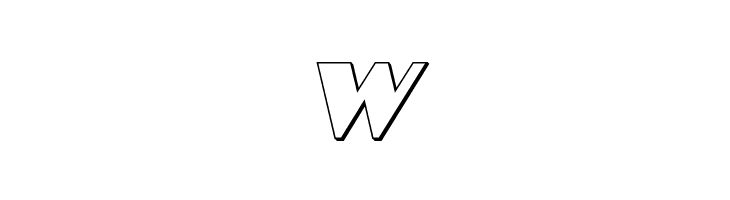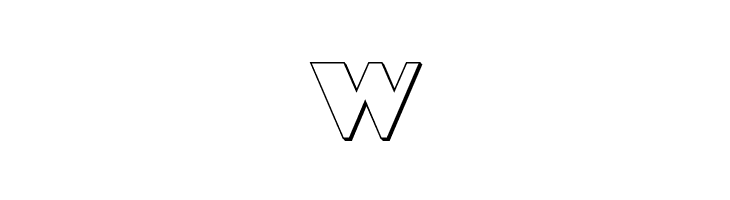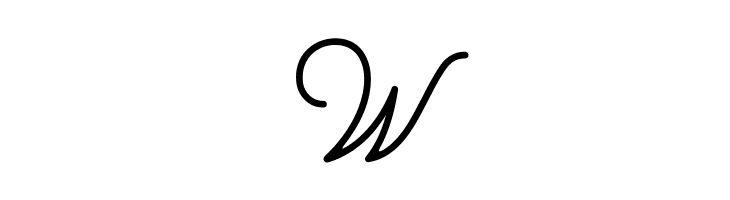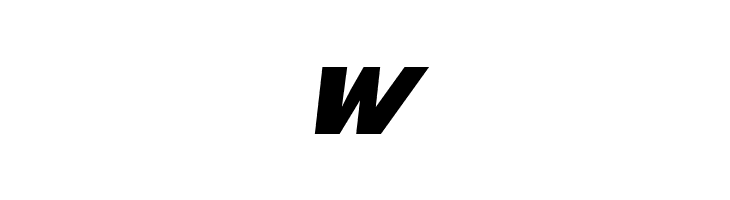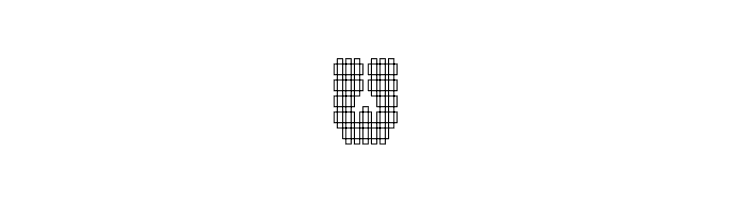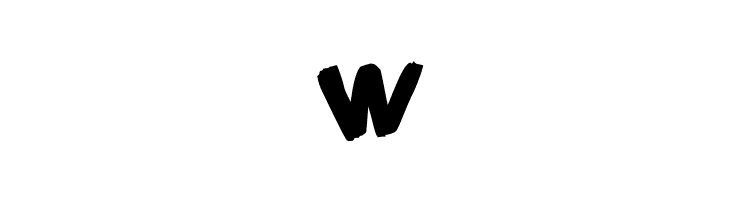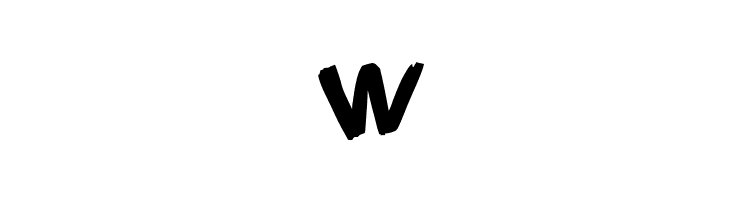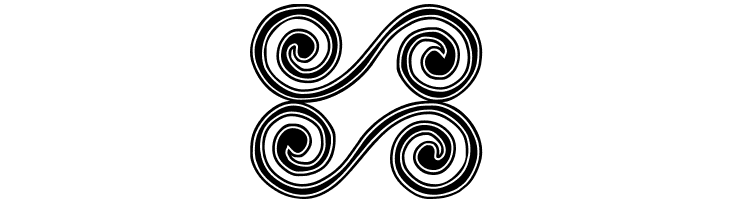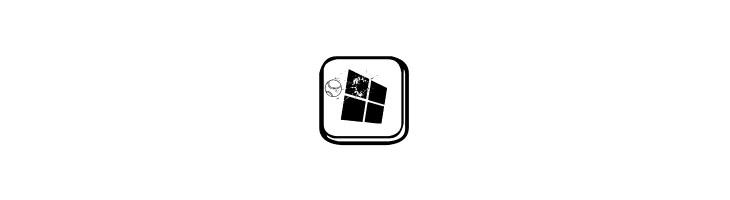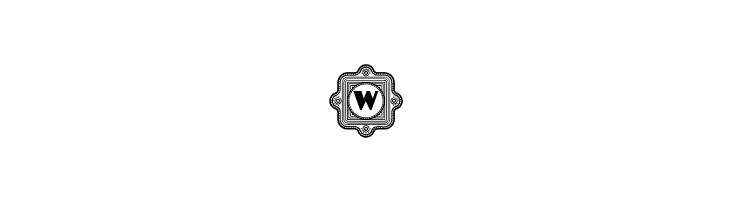
A bold, playful font with rounded, slanted letterforms and a handwritten feel.
A playful, handwritten script font with an italicized, dynamic style.
A casual, handwritten font with a friendly and approachable style.
A bold, grid-patterned font with a pixelated, digital style.
A bold, futuristic font with rounded, geometric letterforms.
A bold, geometric font with sharp angles and an industrial feel.
A bold, geometric font with sharp angles and a modern aesthetic.
A bold, geometric font with a modern and strong aesthetic.
A bold, italicized typeface with a modern, speedy aesthetic.
A distressed, typewriter-style font with a vintage, rugged appearance.
A dynamic, angular font with a sense of speed and movement.
A bold, brush-style font with dynamic and expressive strokes.
A bold, graffiti-inspired font with a dynamic, hand-drawn style.
A vintage, monospaced typewriter-style font with a rough, mechanical feel.
A bold, decorative font with intricate geometric patterns and a futuristic style.
A modern, minimalist font with clean lines and geometric shapes.
A bold, italic, 3D font with outlined characters for a dynamic look.
A bold, 3D outlined font with a modern and impactful style.
A decorative font with uppercase letters and numbers in ornate frames.
A bold, modern italic font with smooth, fluid strokes and slightly condensed letterforms.
A bold, striking font with thick, uniform strokes and a dynamic feel.